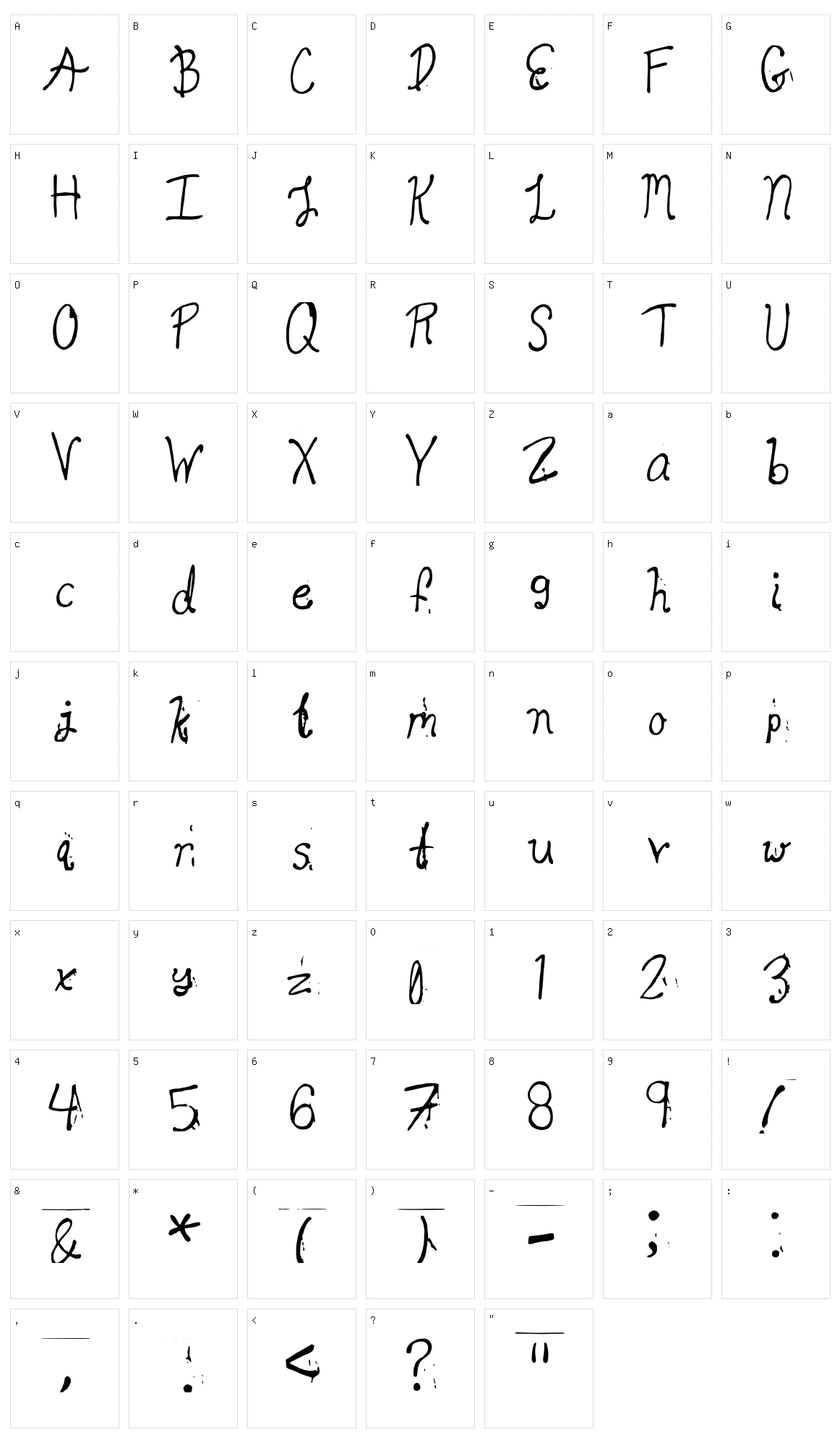
The free font Could Be Bloody is carefully designed by someness, showcasing a thoughtful balance of creativity and usability and falls under the Trash font style. When you download the ZIP file, it contains only 19.07 KB of font files, making it lightweight and quick to download. Please review the license details below to understand permitted usage and distribution rights. If license information is not available, we recommend using this font for personal projects only or contacting the author directly for commercial usage permissions.